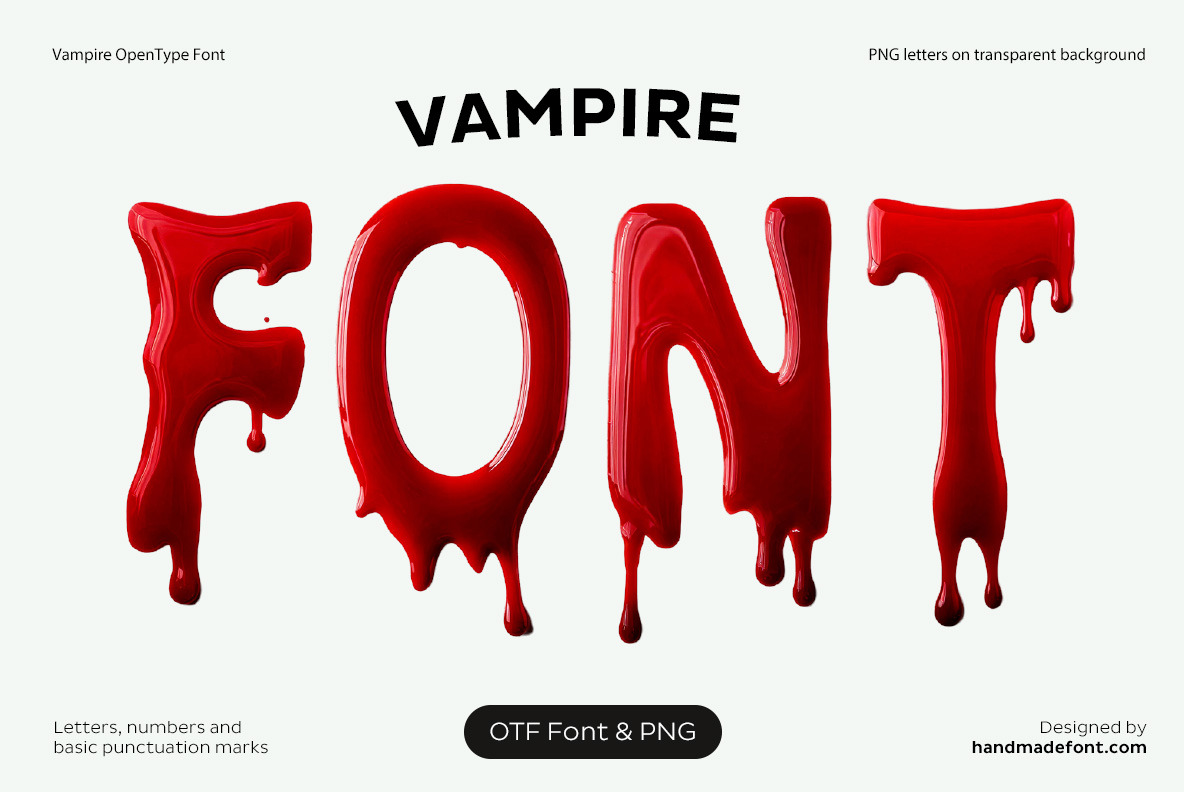
Vampire Font
The Vampire Font is a chilling and dramatic typeface where every letter drips with the essence of blood, perfect for creating eerie and captivating designs. Ideal for horror-themed projects, Halloween invitations, spooky posters, or dark fantasy branding, this font oozes with macabre creativity. Its sharp, gothic strokes and fluid, blood-like details bring a hauntingly realistic feel to your typography. Unleash the dark side of your imagination with the Vampire Font, a must-have for anyone looking to add a bold, sinister edge to their designs. It’s the ultimate choice for those who dare to make a bloody impact.
A high definition OpenType Font. Contains uppercase characters, numerals and basic punctuation. (Draw height roughly 800 pixels). All letters and glyphs that comprises this font you can see on the preview.
- Letters : A B C D E F G H I J K L M N O P Q R S T U V W X Y Z
- Numbers : 0 1 2 3 4 5 6 7 8 9
- Others : ! ? - . ' $ € % & #